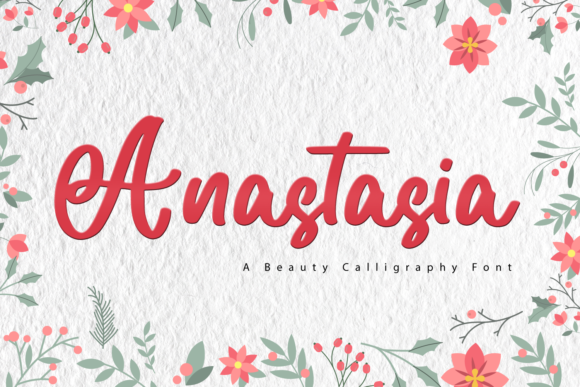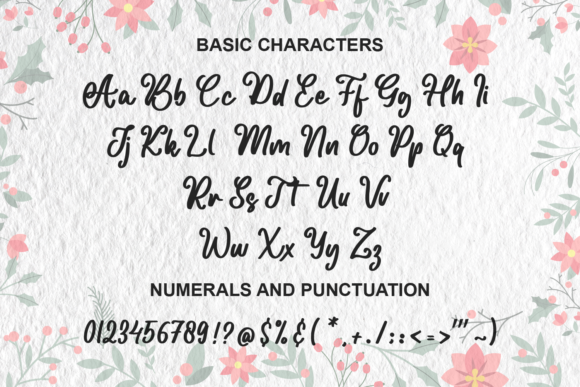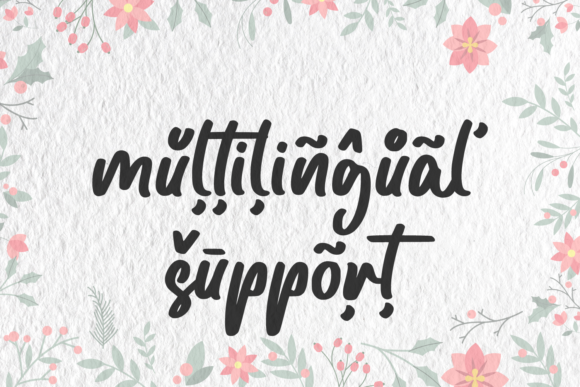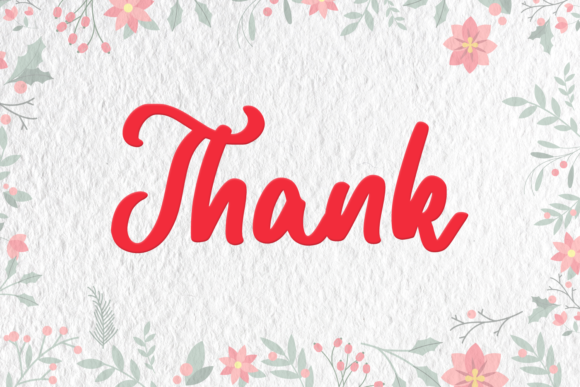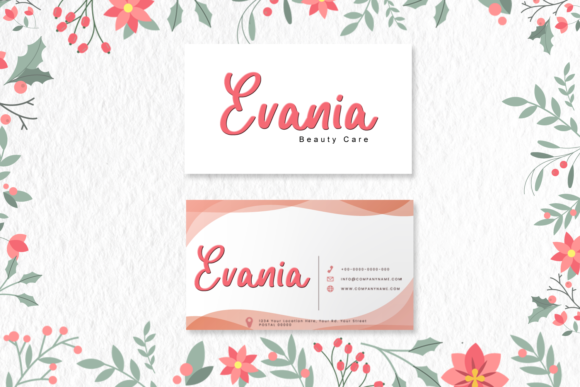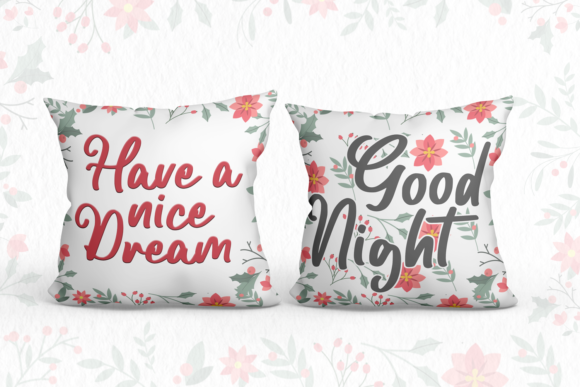
About Anastasia Font
Anastasia is a stunning and sophisticated handwritten font that exudes elegance and charm. With its beautiful and classy style, this font adds a touch of luxury and refinement to your favorite projects. Fall in love with Anastasia’s distinct and timeless aesthetic, and watch as it elevates your designs to new heights.
The elegance of Anastasia lies in its meticulously crafted letterforms, which showcase the perfect balance between beauty and legibility. Each stroke is carefully designed, creating a harmonious flow that captures attention and evokes a sense of gracefulness.
This font’s timeless style ensures that it remains relevant and appealing across various design projects. Whether you’re creating wedding invitations, thank you cards, logos, greeting cards, or any other design that requires a personalized touch, Anastasia is the perfect choice. Its elegant and classy appearance adds a touch of sophistication to your designs, making them truly stand out.
Anastasia’s versatility is another notable feature. It seamlessly adapts to different design contexts, effortlessly complementing various styles and themes. Whether you’re aiming for a romantic and dreamy atmosphere or a more refined and formal look, Anastasia effortlessly brings your vision to life.
Using Anastasia is a breeze, as it is designed to ensure easy readability and smooth integration into your projects. Each letter has been carefully crafted to maintain clarity and legibility, allowing your message to shine through while preserving the font’s unique charm.
In summary, Anastasia is a beautiful and classy handwritten font that exudes elegance and timeless appeal. Its distinct and sophisticated style adds a touch of luxury to your designs, making them truly spectacular. Whether you’re designing wedding materials, branding elements, or any other project that requires a touch of sophistication, Anastasia is the perfect choice to create stunning and memorable designs. Fall in love with Anastasia’s elegance and let it bring a touch of refinement to your favorite projects.